Mix Penny Press
Mix Penny Press is neat handwriting that actually stays readable, even three paragraphs in. Most handwriting fonts look great in a title and fall apart the moment you ask them to hold a sentence. Penny Press was drawn the other way round: an even, upright axis, open counters, a steady baseline, and gentle rounded terminals, […]
Mix Classroom Crush
Meet CLASSROOM CRUSH, a handwritten font that’s part sweet, part smart, and 100% legible. Think notebook scribbles minus the mess, or the kind of handwriting your favorite teacher had when they wrote on the board (the one who always gave bonus points). Now with a bold all-caps sibling, CLASSROOM CRUSH HEADERS, for when you need […]
Mix Homework Helper
Mix Pudgy Panda
Add some serious chubbiness and cuteness to your designs with PUDGY PANDA, a bold and bubbly sans serif that’s perfect for anyone who craves a playful touch. This round and roly-poly font will bring a smile to your face every time you use it. And with a doodle dingbat set included, PUDGY PANDA is sure […]
Mix Happy Friday
Mix Happy Friday is the fastest way to a cute, cohesive content feed. An upbeat rounded handwritten font with a matching dingbat set: rainbows, hearts, suns, stars, sparkles, and squiggle underlines. The font sets the words, the dingbats finish the post. Together they turn a plain caption into something that looks designed. Made for the […]
Mix Ordinary
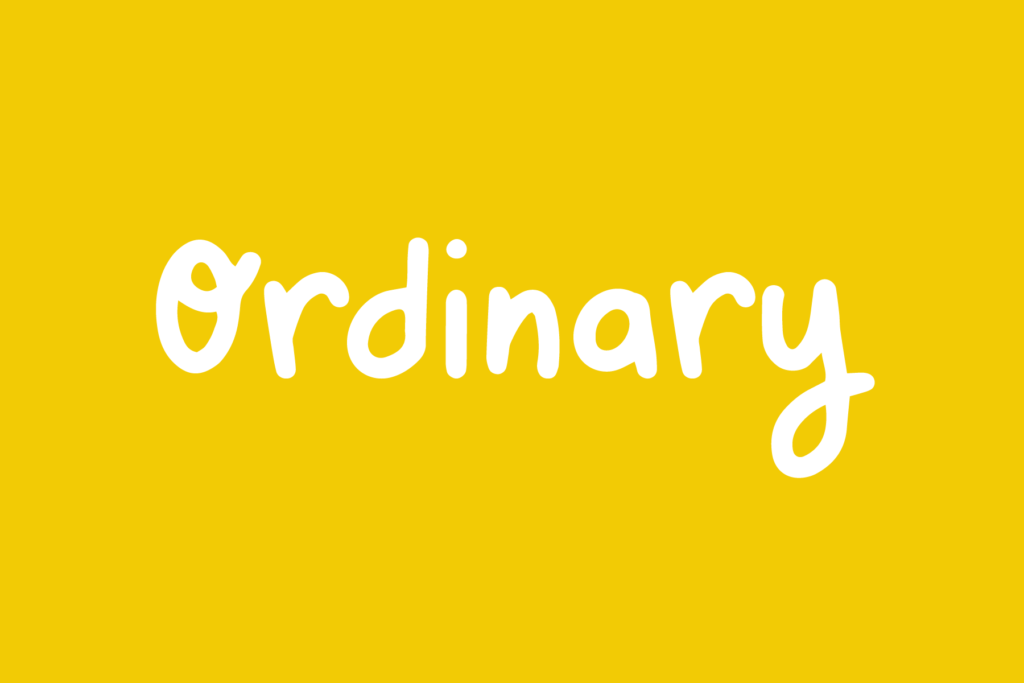
MIX ORDINARY is a cutesy, swirly monoline print font that adds a touch of quirk and Sassitude to your designs. With its mix of basic letters and a few quirky ones, this font strikes the perfect balance between plain and cute. Whether you want to add a playful twist to your projects or simply want […]
Mix Marker
Mix Marker is a playful and unique handwritten label font that adds a touch of human flair to your projects. Imagine writing your name on a mailing label with a marker – that’s the fun, casual look and feel of this special font. Each character was handdrawn with a basic everyday marker, and then carefully […]
Mix Pinta
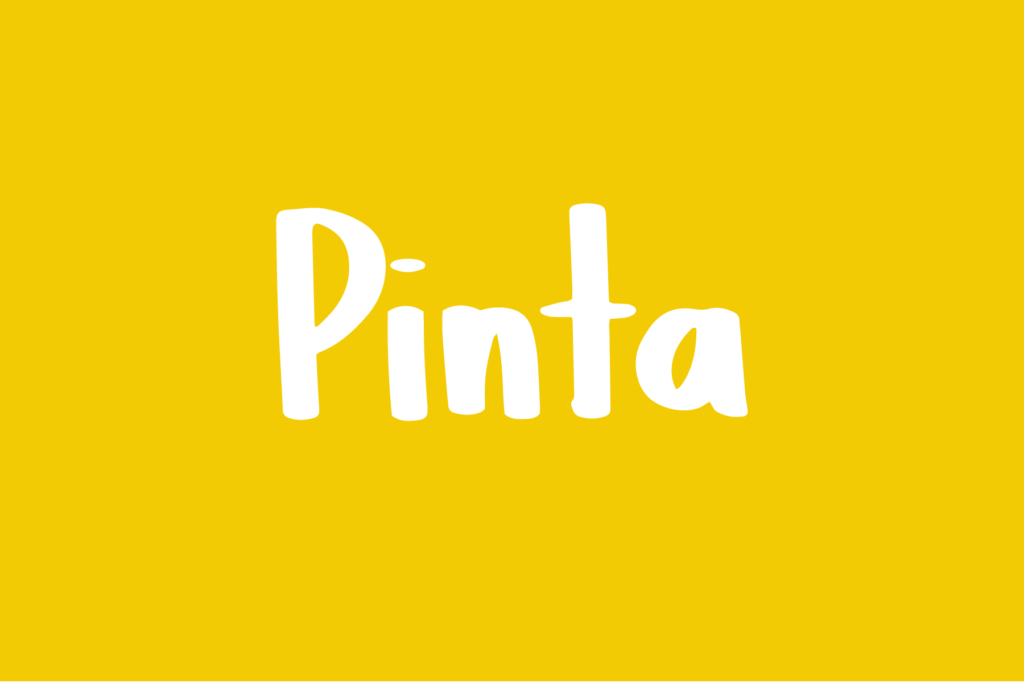
MIX PINTA was handpainted with a flat brush. The characters were then digitized, cleaned up, and converted into a font. MIX PINTA includes the following characters: ABCDEFGHIJKLMNOPQRSTUVWXYZ abcdefghijklmnopqtrstuvwxyz 0123456789 !@$#%^&*() `~♥ +=[]:;’”,.|/?{}<>“”‘’-_©®°€£¥
Mix Stitch
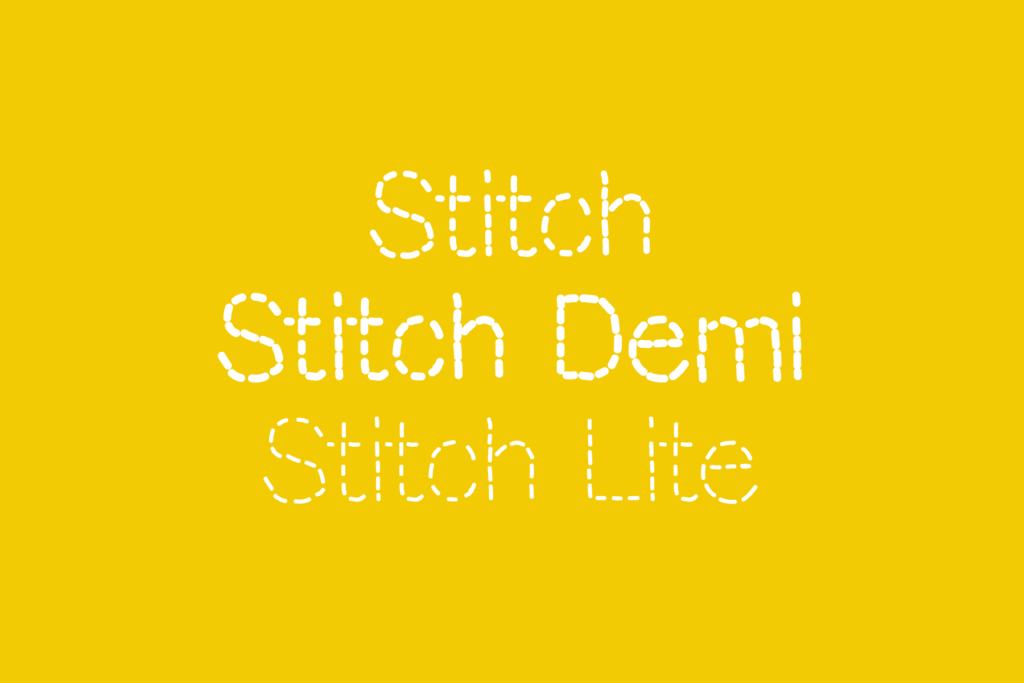
Mix Stitch is an embroidery lesson disguised as a font. Dashed stitch lettering that fakes hand embroidery convincingly enough to fool your grandmother. The dashes also double as tracing guides, which makes this an accidental handwriting practice font for kids learning their letters. It was designed for craft projects and ended up being useful for […]
Mix Shaded
Mix Modern Solid
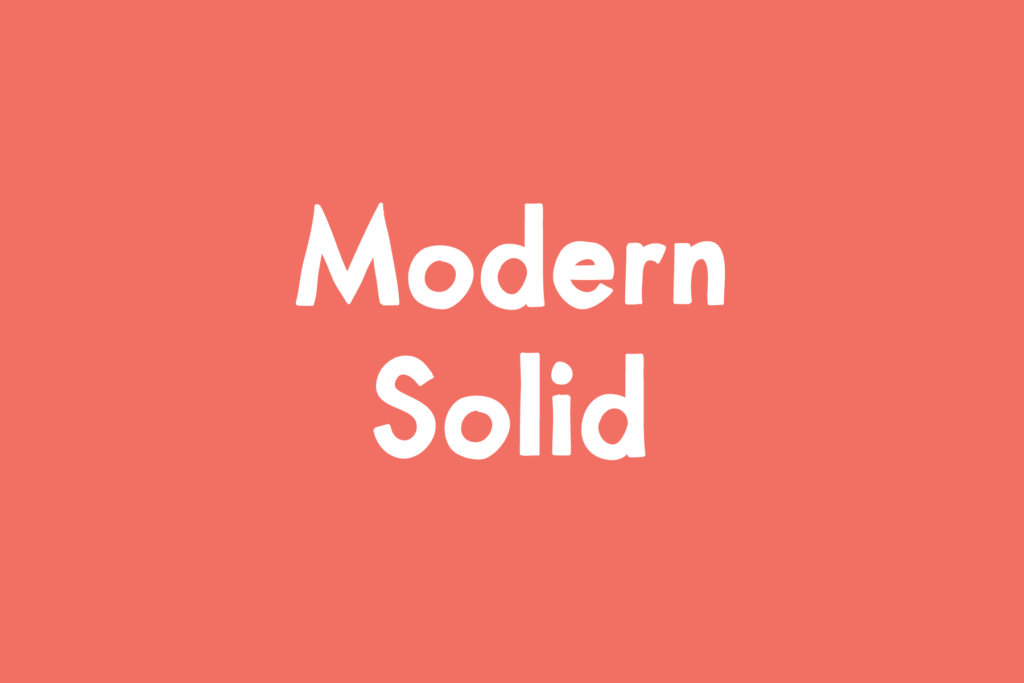
Mix Directions
Mix Directions is a dingbat of assorted handdrawn doodle arrows. Uppercase and lowercase characters are of the same arrow pointing in opposite directions.
Mix Connect Dots
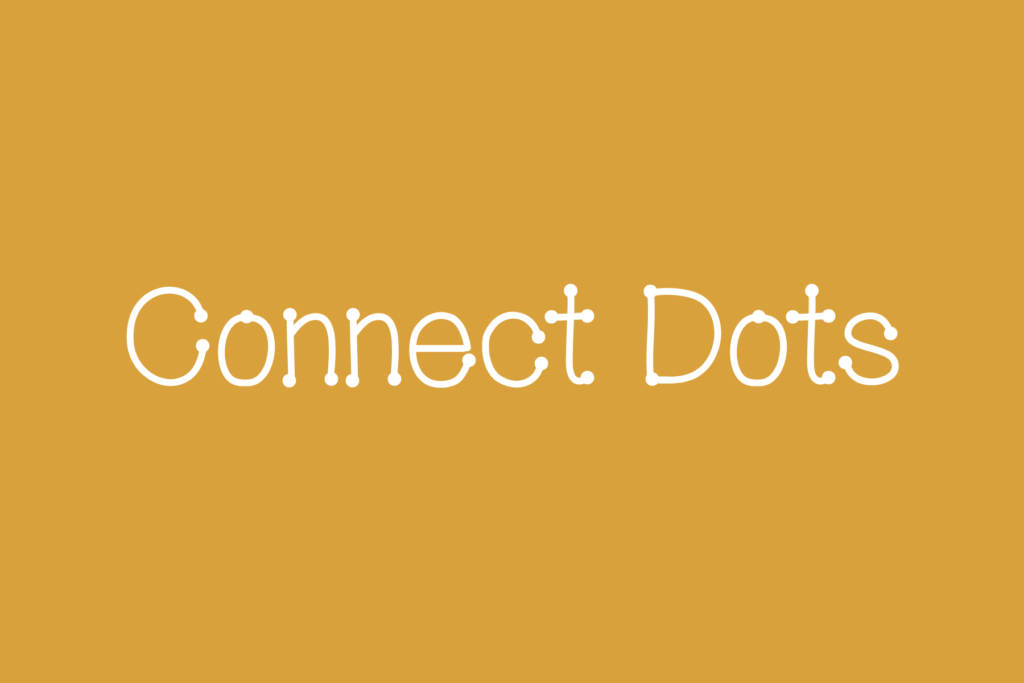
Mix Comic
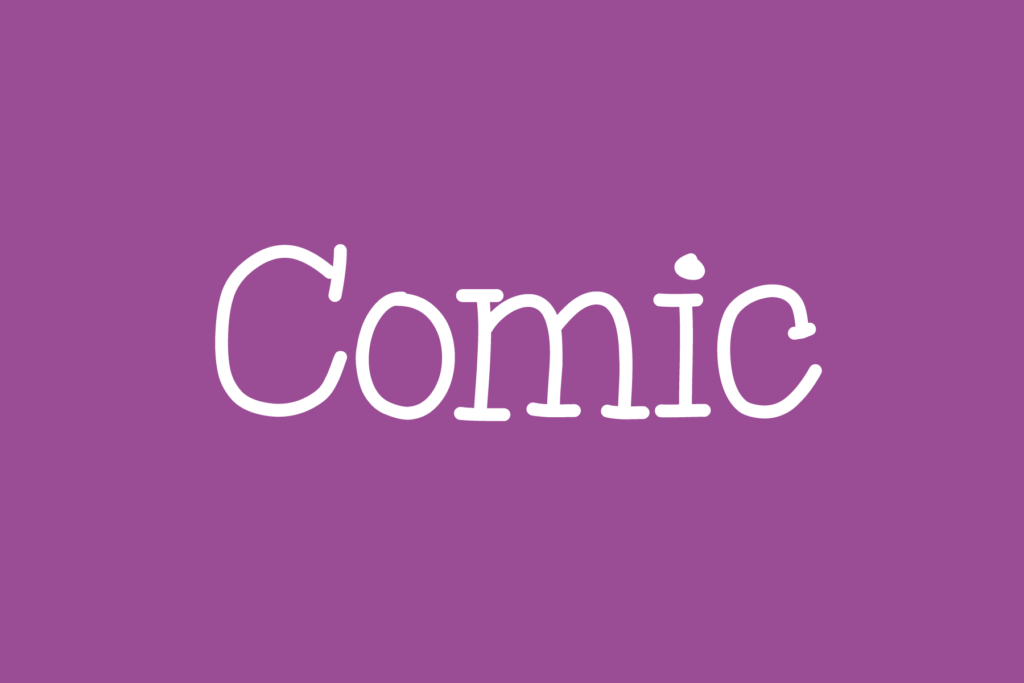
Mix Arrows